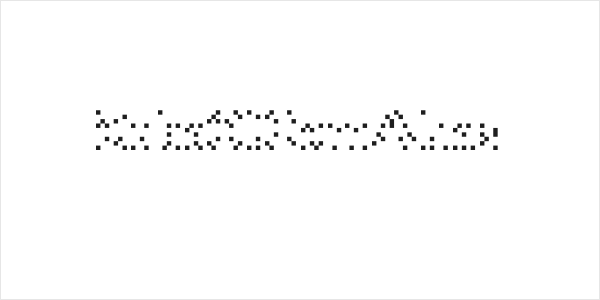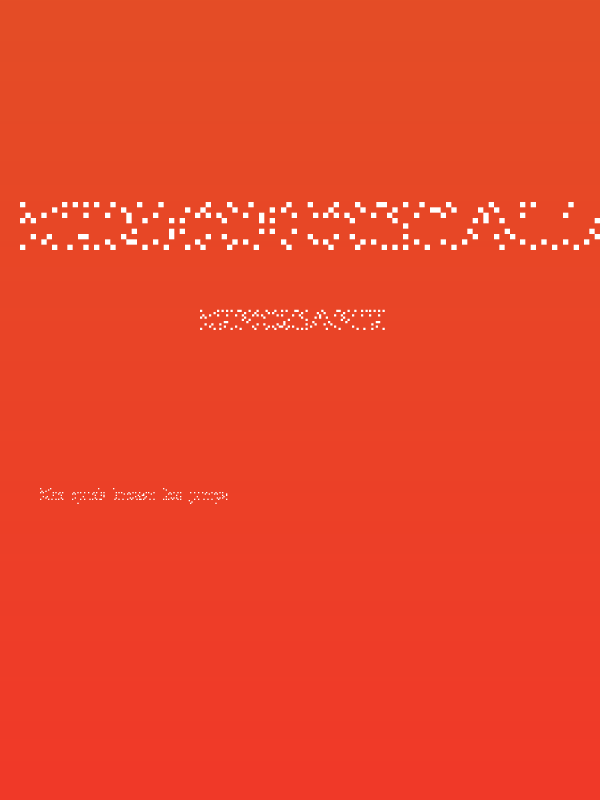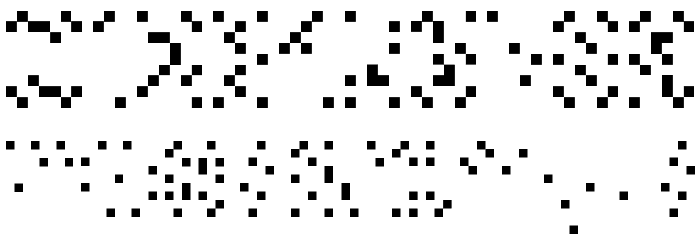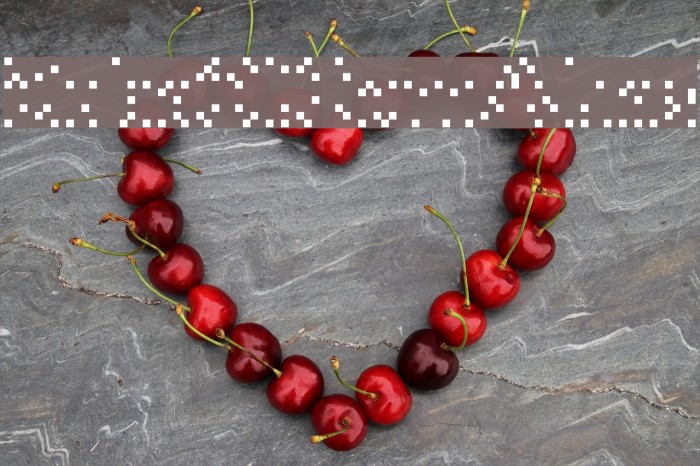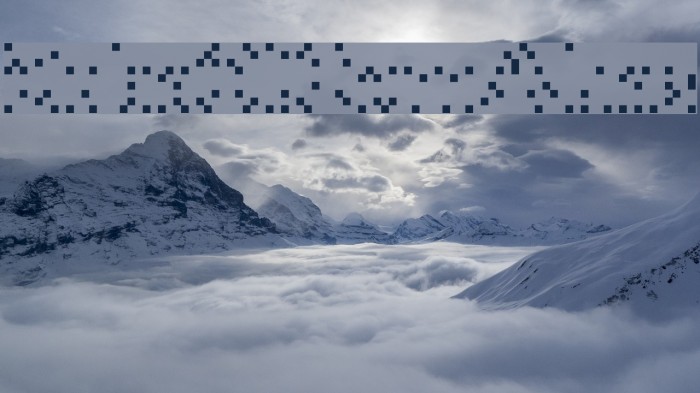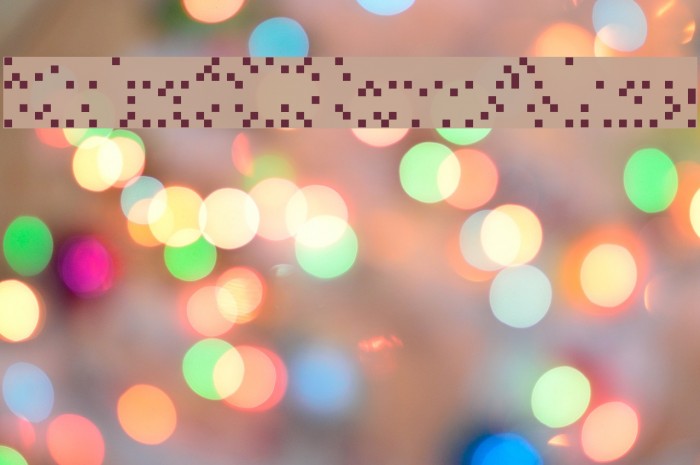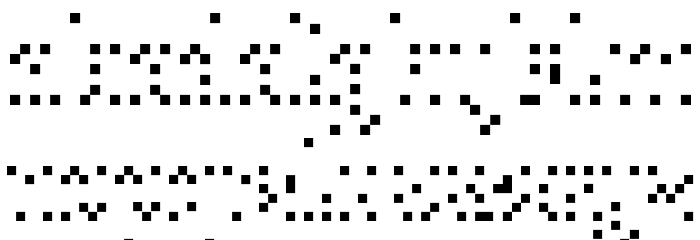
TubeOfCornAlias Font
TubeOfCornAlias Description
This font is a pixelated, dot-matrix style that mimics the appearance of old digital displays or early computer screens. Each character is composed of a grid of small squares, giving it a distinctly retro and digital feel. The characters are evenly spaced, and the uniformity of the grid structure provides a consistent and mechanical aesthetic. This style is reminiscent of early arcade games and digital watches, offering a nostalgic look that is both functional and decorative. The font is highly legible at larger sizes but may lose clarity when reduced too much due to its pixelated nature.
| Use Case | Logos, Headlines, Digital Art |
| Proposed Projects | Ideal for retro-themed designs, digital art projects, video game graphics, and any project requiring a vintage digital look. |